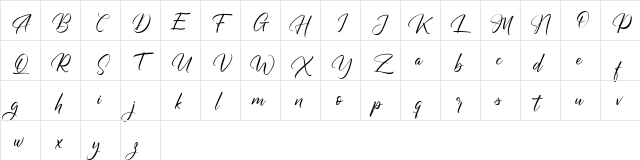
Margaritha Tropicana FREE Regular
| Foundry | Vunira Design |
| Designer | Vunira Design |
Design Context for Margaritha Tropicana FREE Typeface
Margaritha Tropicana FREE is a composed and adaptable typeface that performs quietly and consistently across a wide range of design contexts.